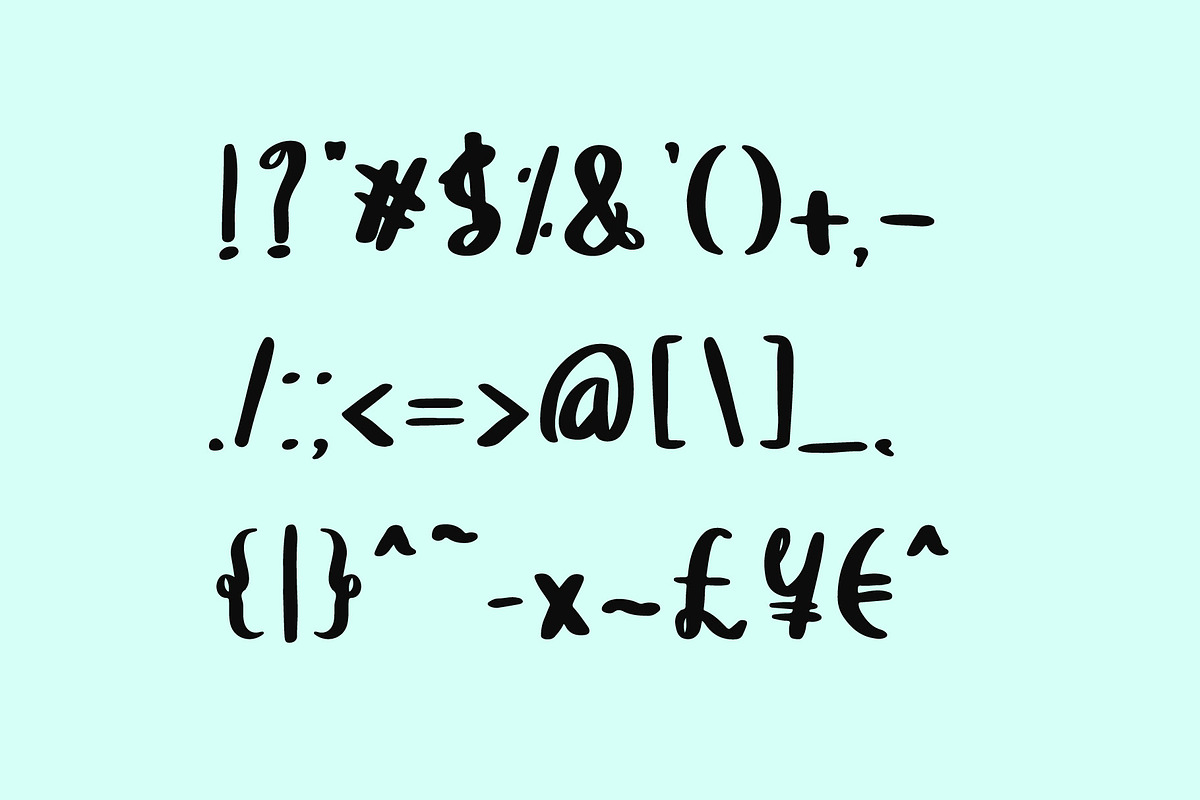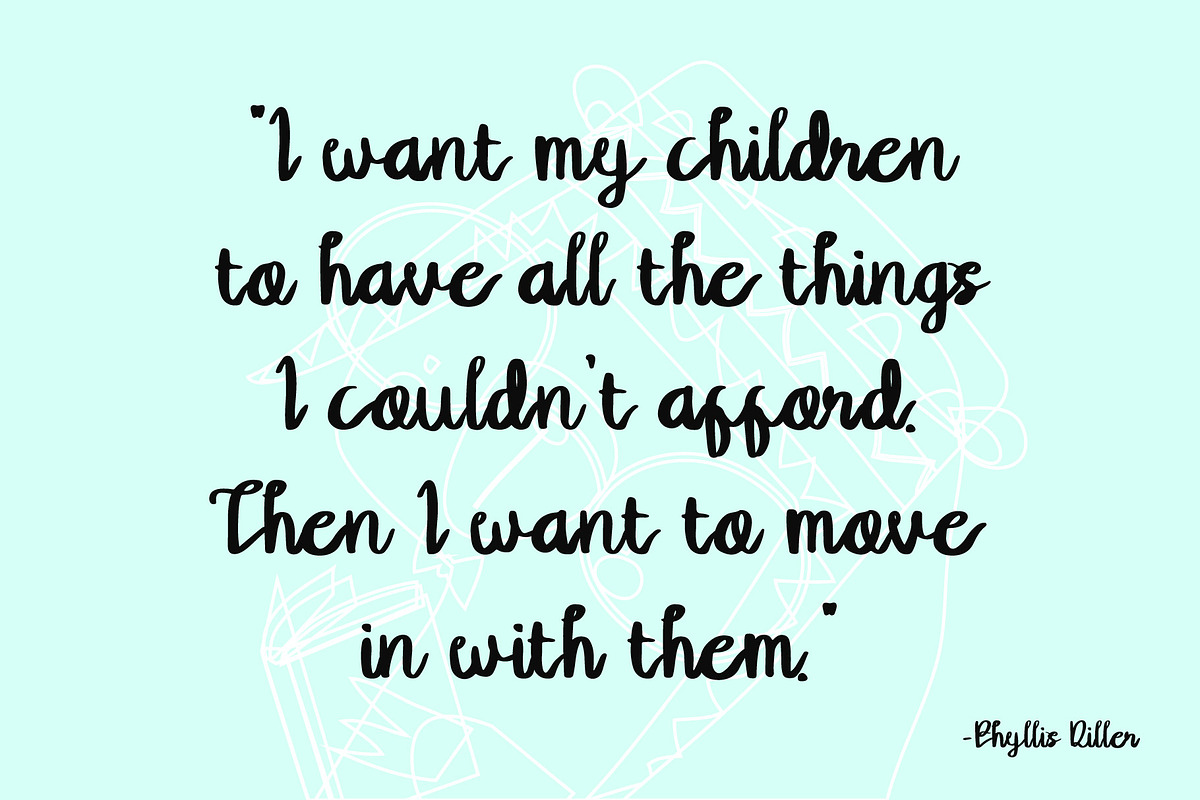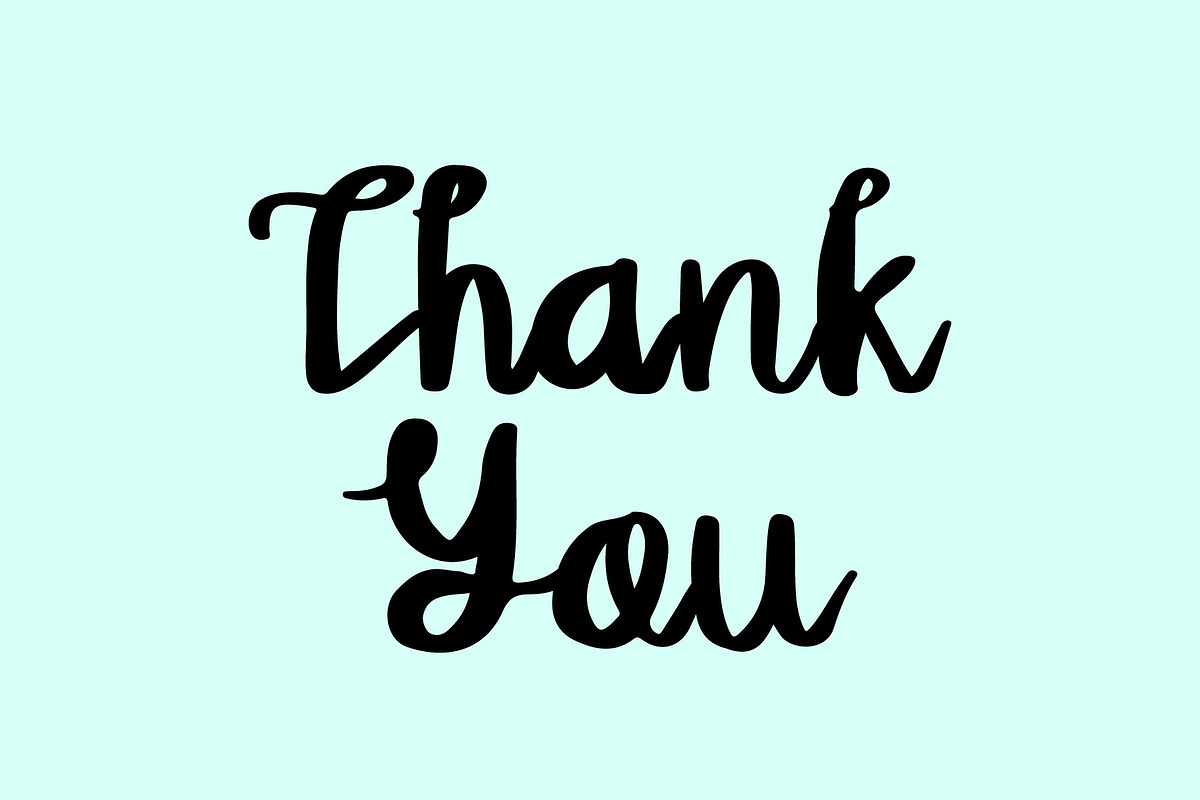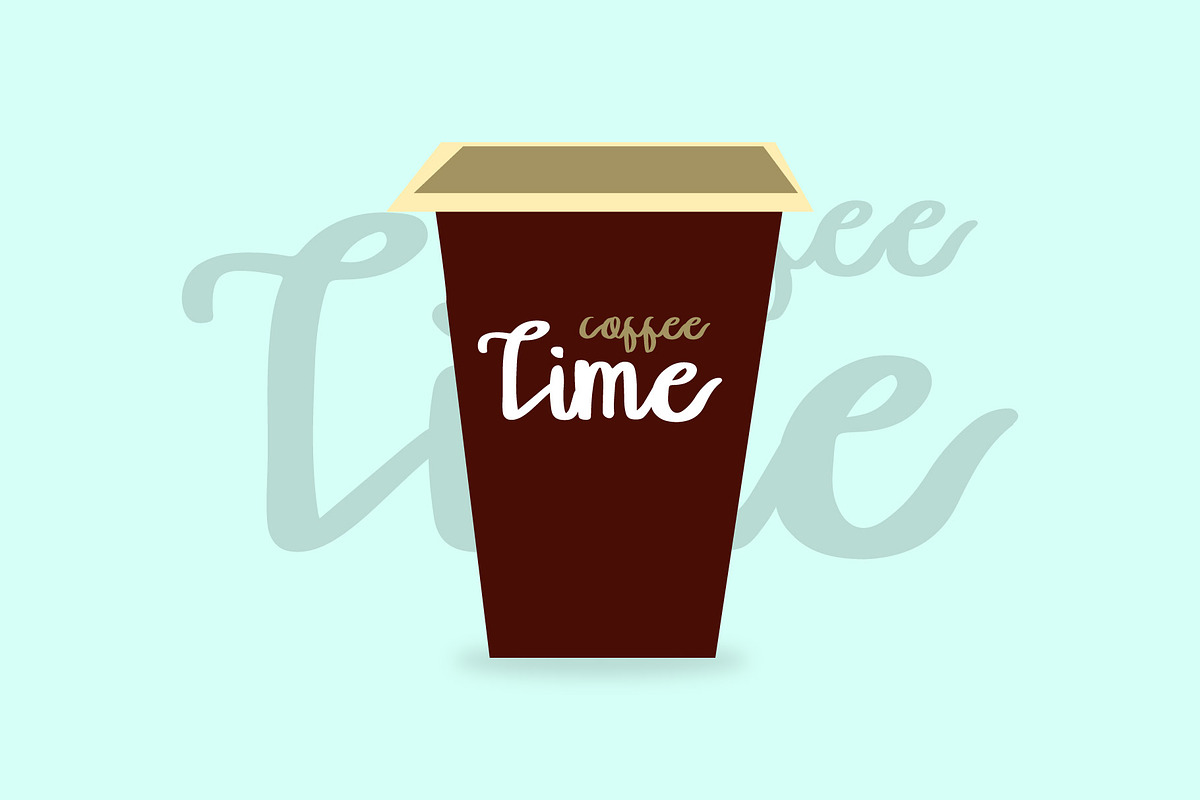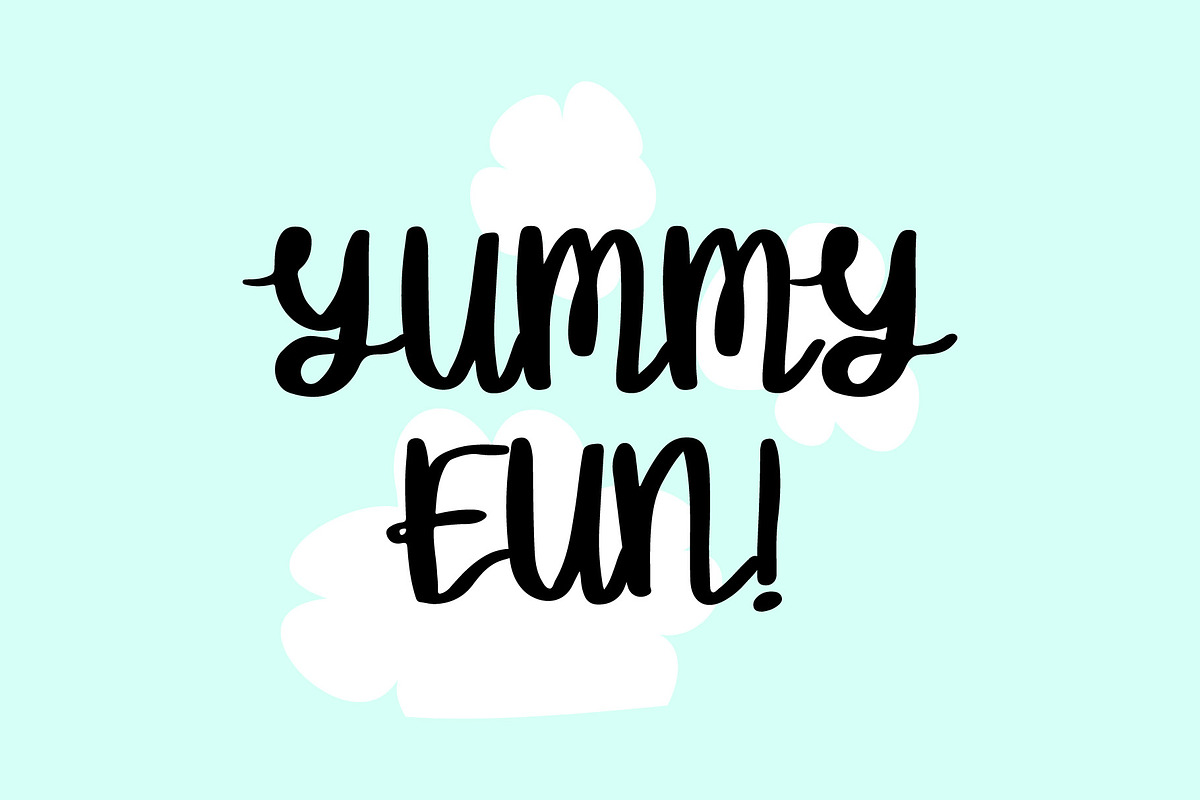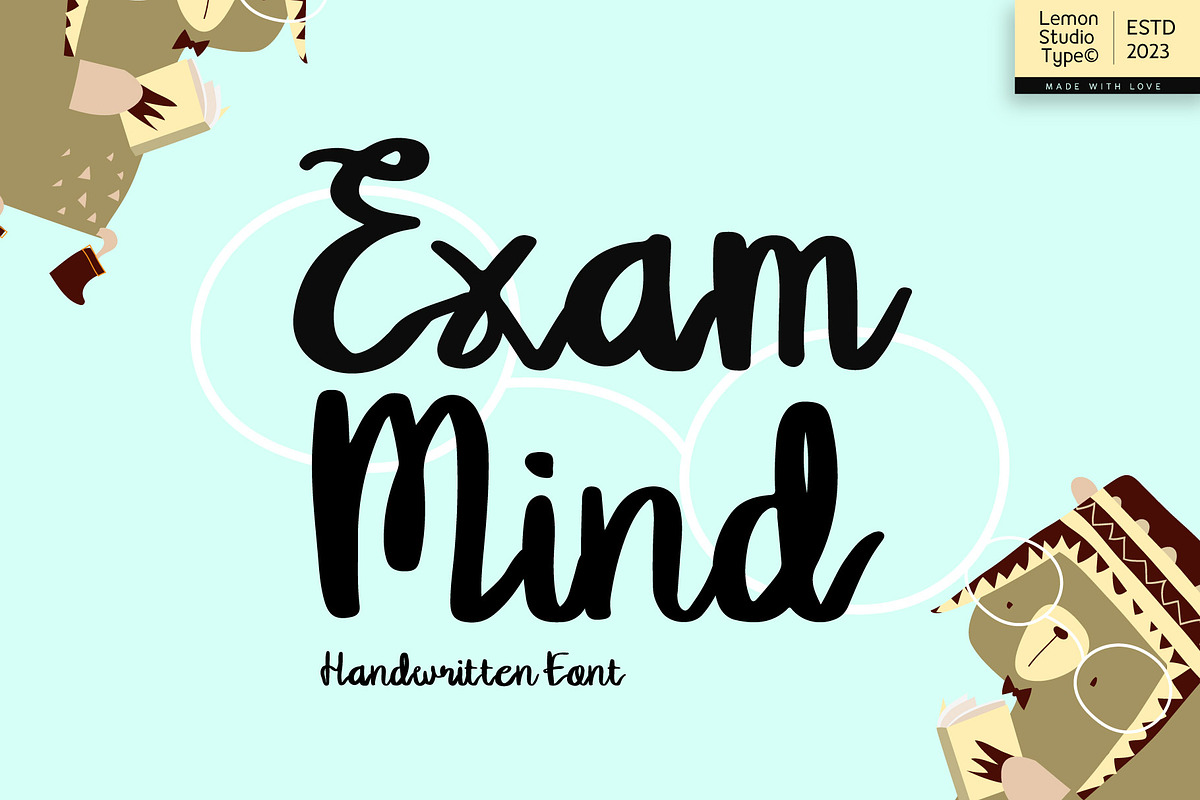
Exam Mind - Cute Handwritten
Exam Mind is a beauty handwritten script font. The brush is very soft and gives a very beautiful feel. It's so perfect for your cute design project, like for title for your book cover, film, mockup, or labels. Use as you wish and need.